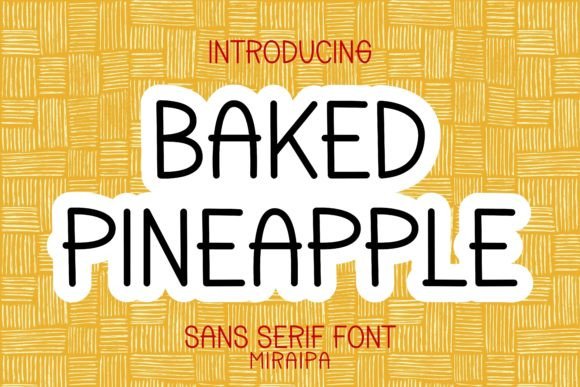
In a world of digital monotony, where fonts often blend into the background, Baked Pineapple emerges as a beacon of creativity and joy. This charming sans serif font, handcrafted by the talented miraipa, is not just a font; it's a personality waiting to dance across your designs.
Its playful and friendly vibe is a breath of fresh air, inviting your audience to engage with your words in a way that's both captivating and heartwarming. The rounded letterforms, reminiscent of a child's playful scribbles, evoke a sense of nostalgia and innocence, while the whimsical details add an undeniable touch of charm.
Baked Pineapple is more than just aesthetically pleasing; it's a versatile performer that effortlessly complements a wide range of design projects. Whether you're creating eye-catching branding for your business, designing delightful invitations for special occasions, or crafting captivating graphics for your social media presence, this font adds a delightful sweetness that's sure to leave a lasting impression.
With Baked Pineapple as your design companion, you can effortlessly create designs that resonate with your audience. Its playful nature makes it a perfect choice for cheerful branding, while its warm and approachable personality shines through in invitations, greeting cards, and personal projects.
But Baked Pineapple truly shines when it comes to Christmas designs. Its playful charm and festive vibe make it the ideal choice for creating Christmas cards, holiday invitations, and festive social media graphics that capture the magic and joy of the season.